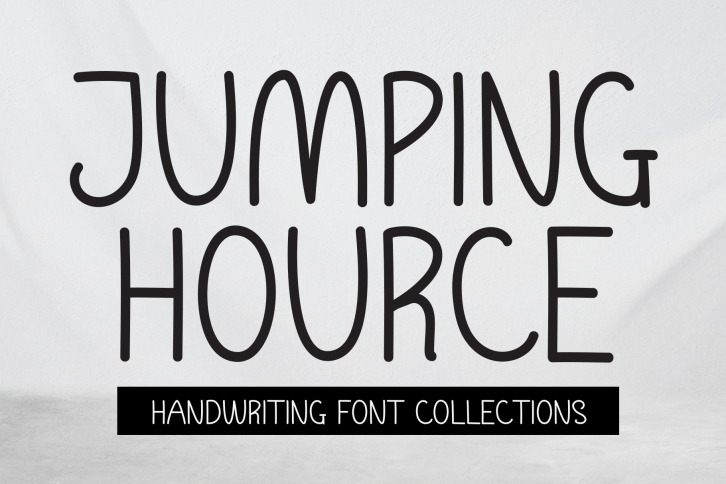
Jumping Hource FONT Download
This is an elegant script font with a contemporary feel and perfect form. Not too thin and not too thick, balanced and varied, this font is designed to enhance the beauty of your projects